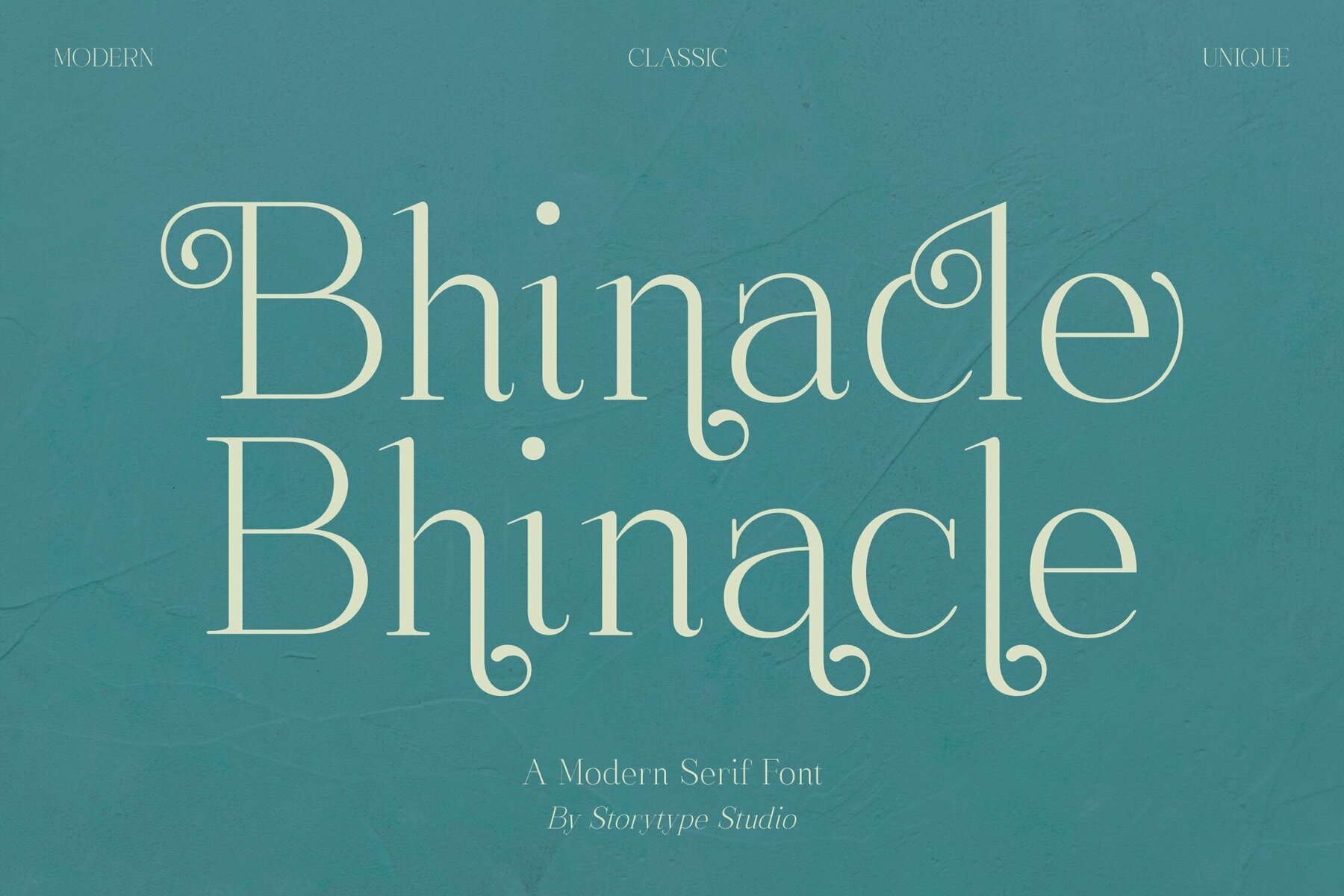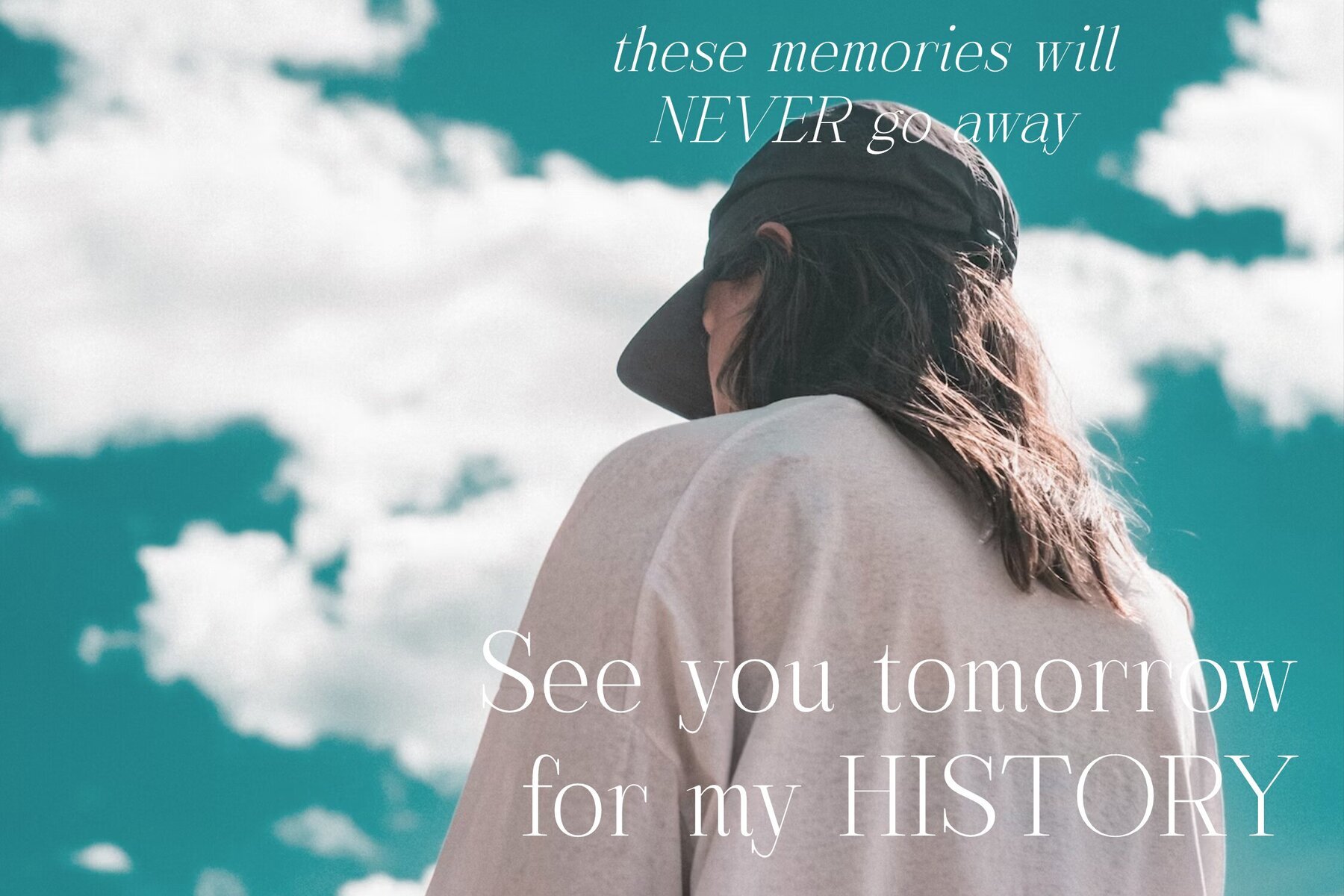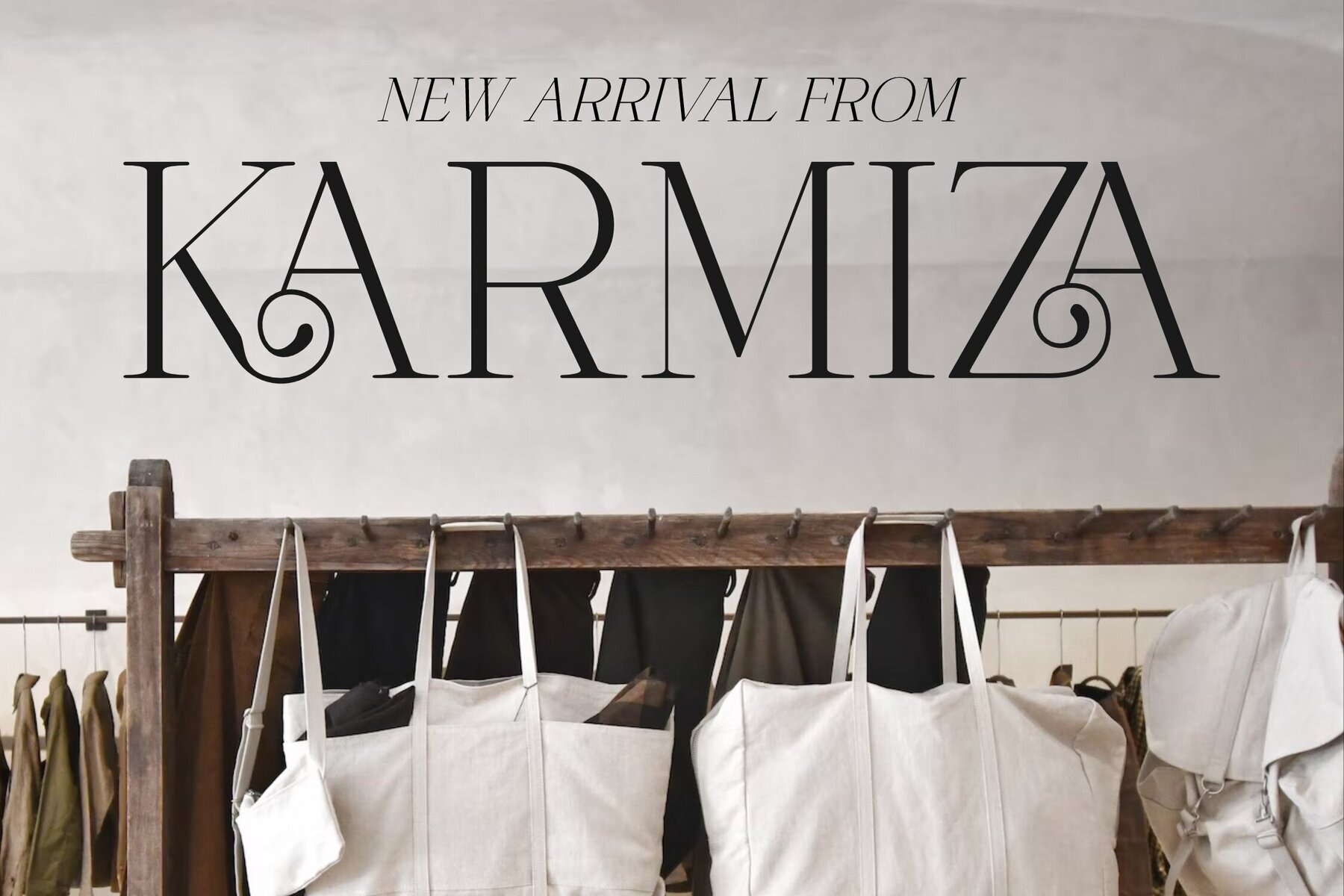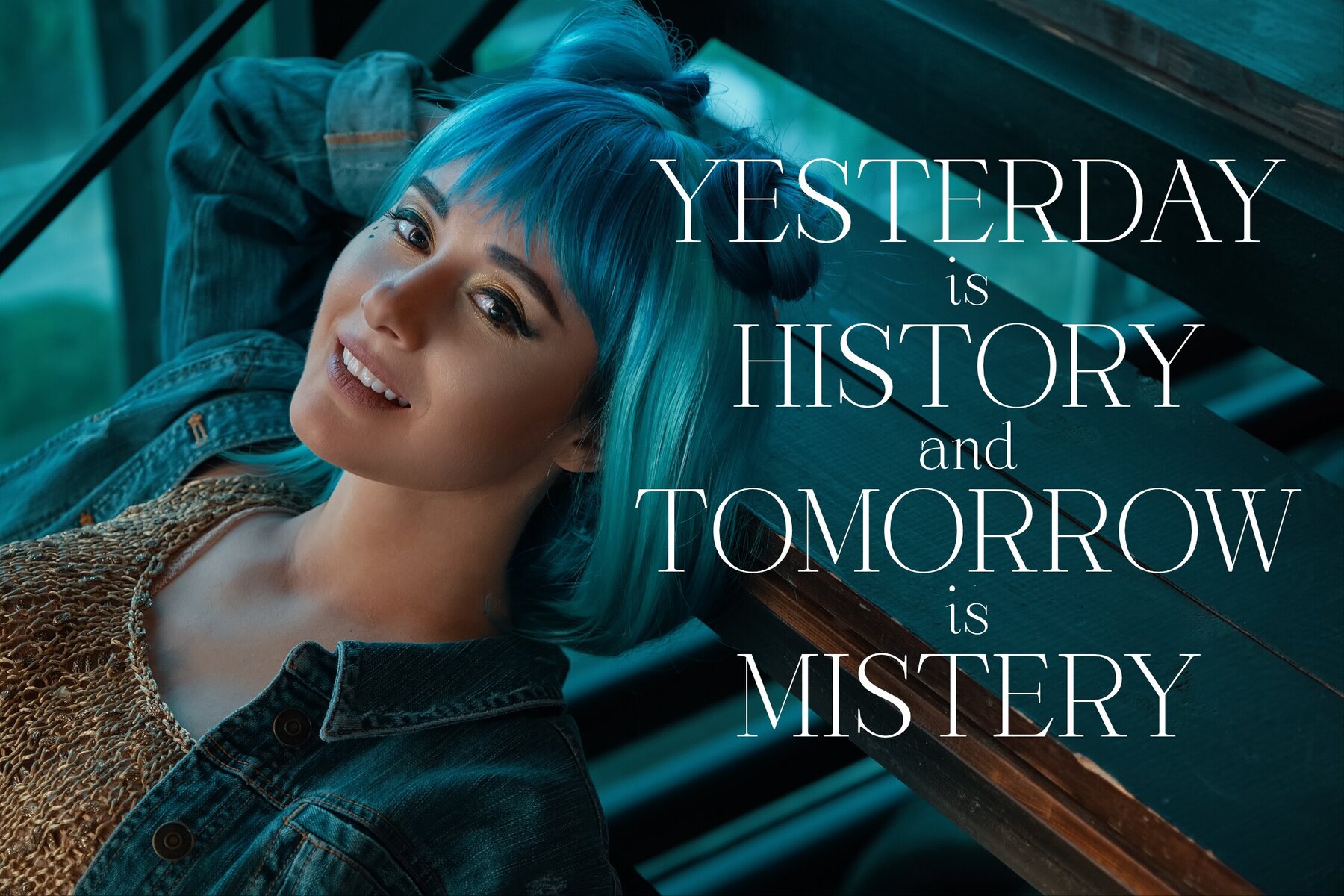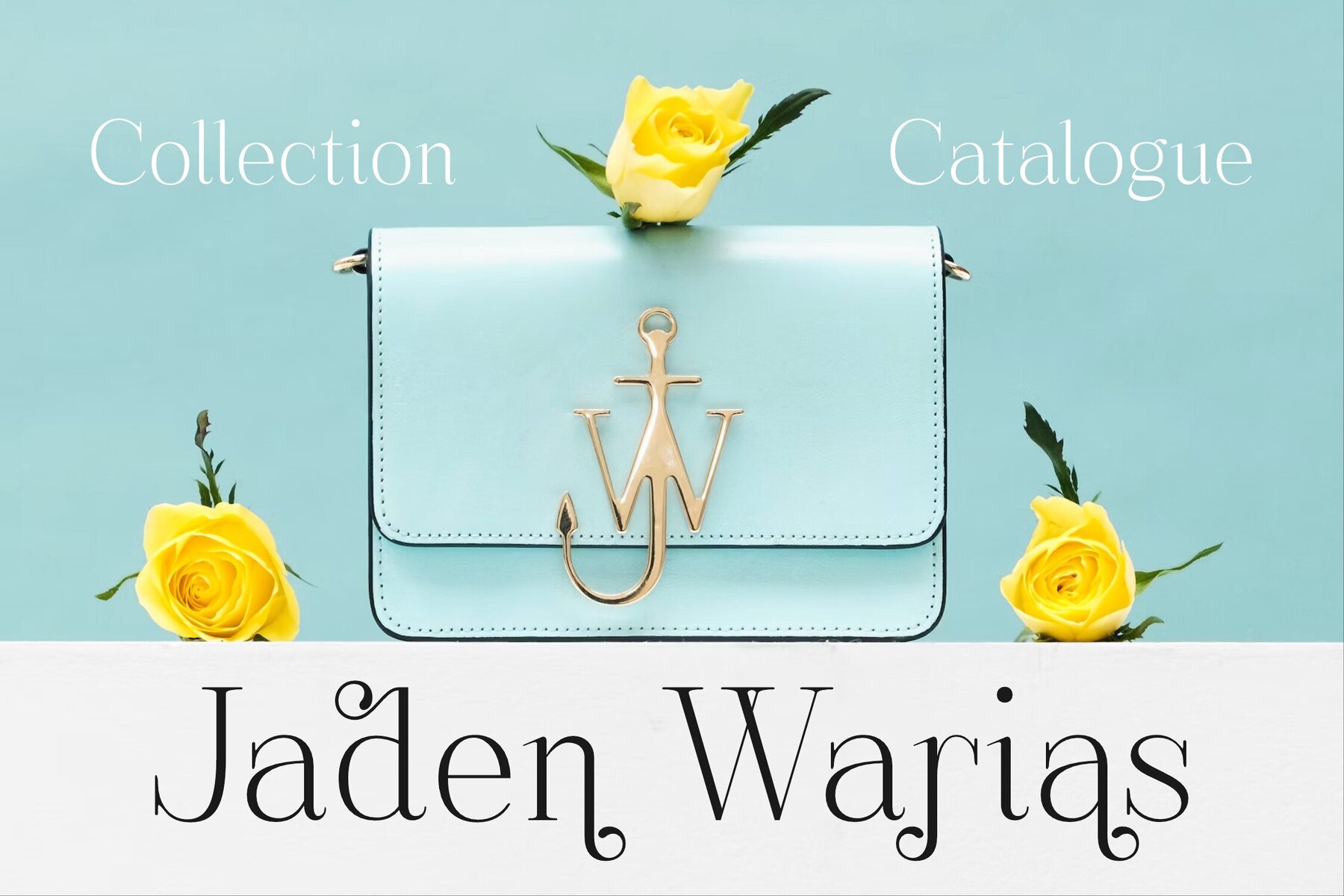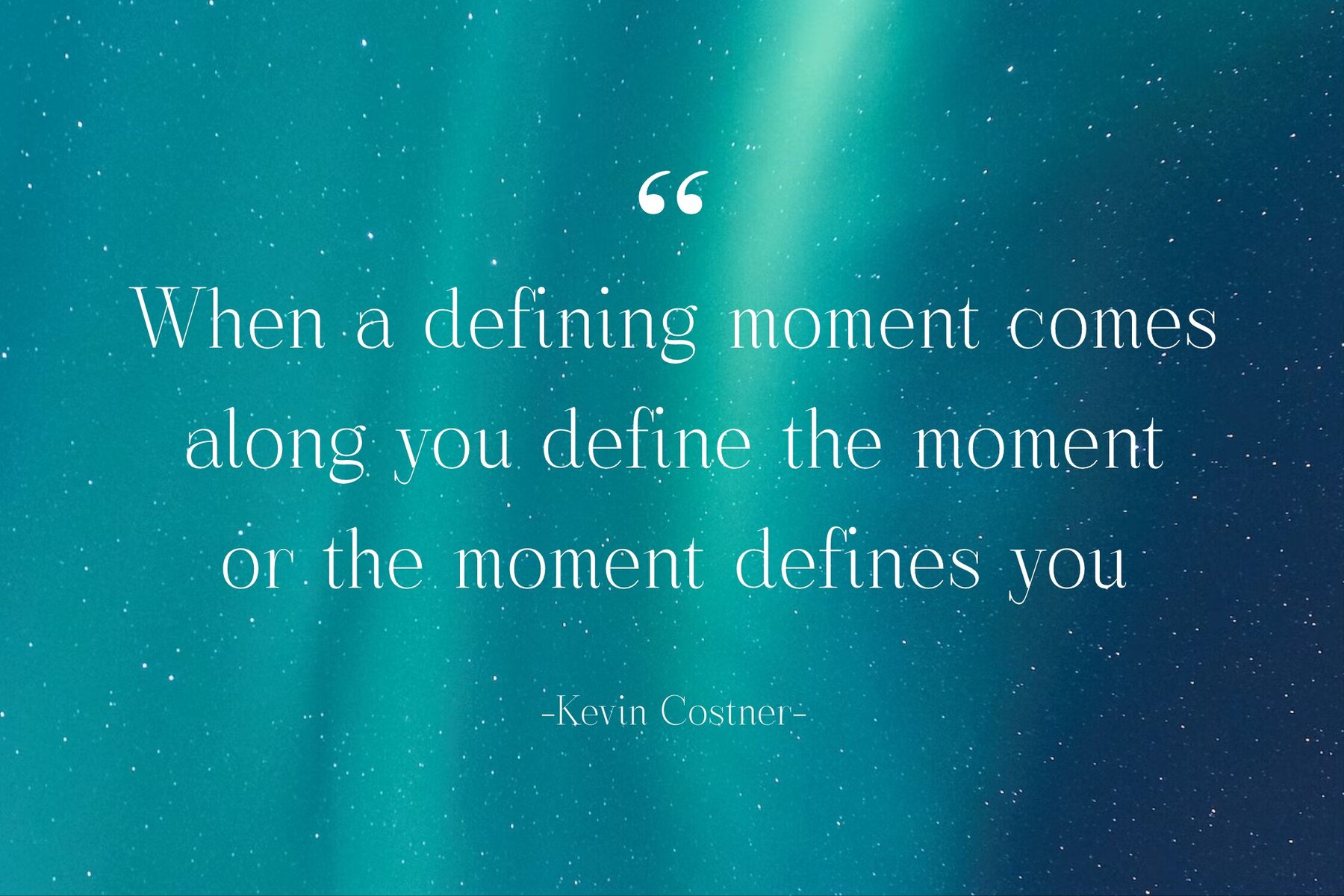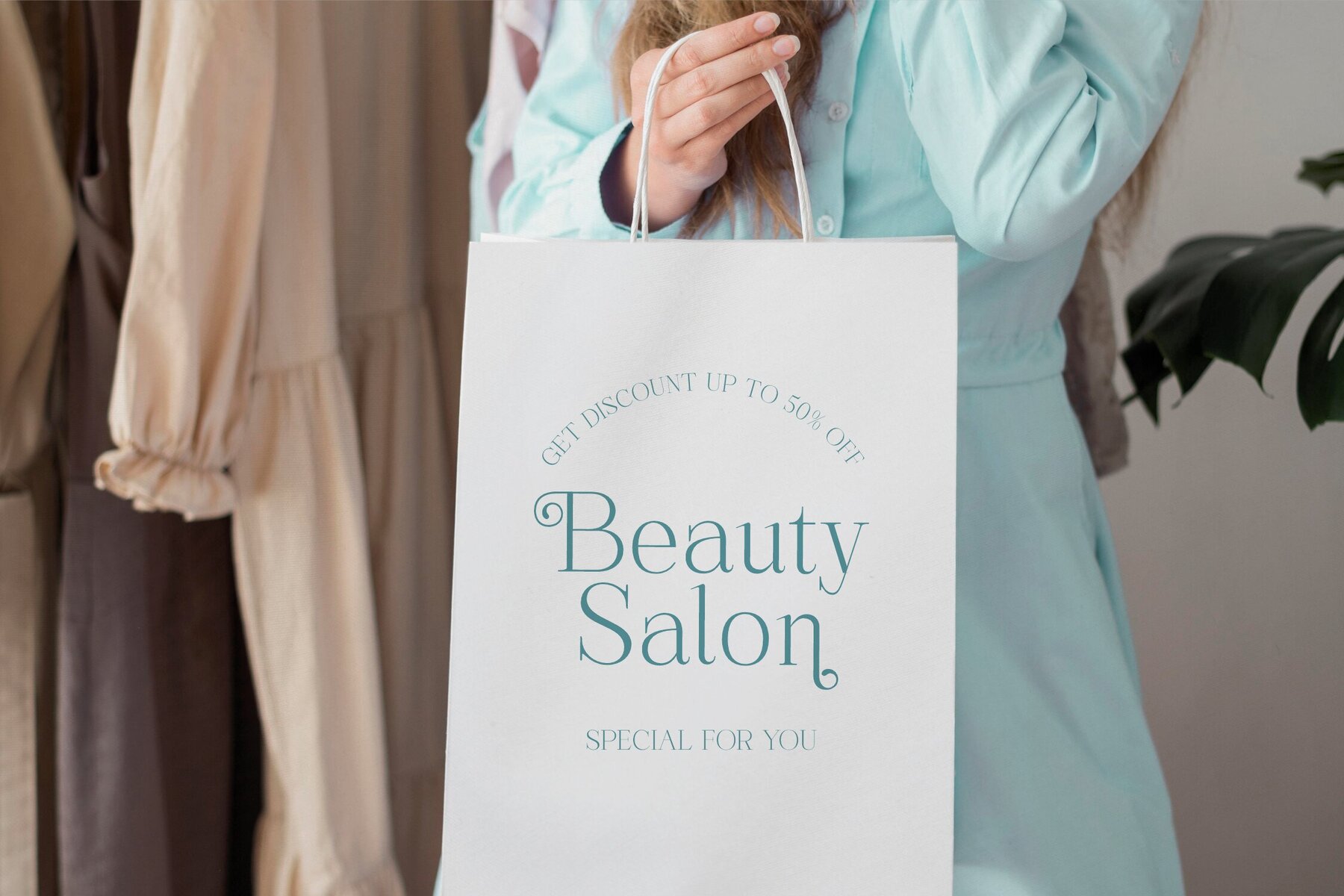
Bhinacle Font
Introducing Bhinacle, a graceful serif typeface from Storytype Studio, blending modern aesthetics with timeless elegance. Ideal for crafting refined logos, book or movie titles, and fashion branding, this typeface also shines in magazines and clothing designs. Its distinct style adds a touch of luxury and sophistication to quotes and various creative projects.Bhinacle Typeface